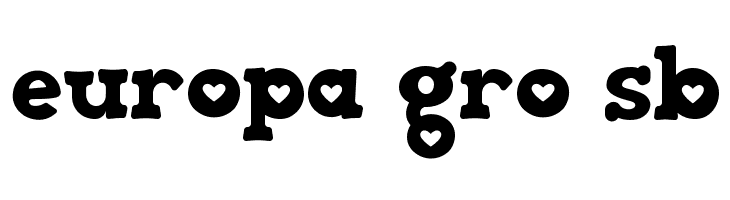
Playful handwritten font with rounded shapes and a heart symbol.
A bold, playful font with rounded edges and whimsical details.
A playful, rounded handwritten font with smooth curves and a friendly appearance.
A bold, geometric font with a modern and attention-grabbing style.
A playful, heart-enclosed font with a casual handwritten style.
A playful, heart-themed decorative font with bold, handwritten characters.